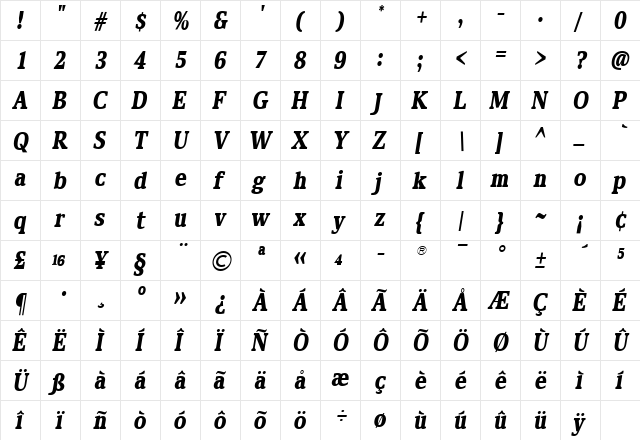
TFArdent Extrabold
| Foundry | Joseph Treacy,Treacyfaces,Inc |
Design Context for TFArdent Typeface
TFArdent is a composed and adaptable typeface that performs quietly and consistently across a wide range of design contexts. The heavy weight commands attention and anchors typographic hierarchies.